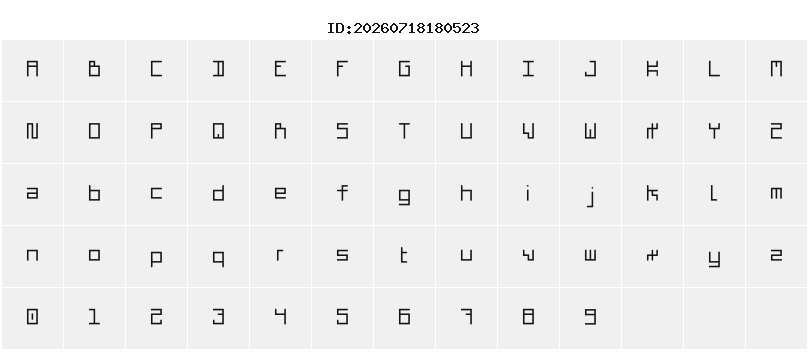
CubicCoreMono Preview
• Font Name: CubicCoreMono
• Full Font Name: CubicCoreMono Regular
About CubicCoreMono.ttf
CubicCoreMono.ttf is a modern, elegant sans-serif font designed for ultimate readability and visual harmony. Perfect for branding, headlines, web design, and print materials.